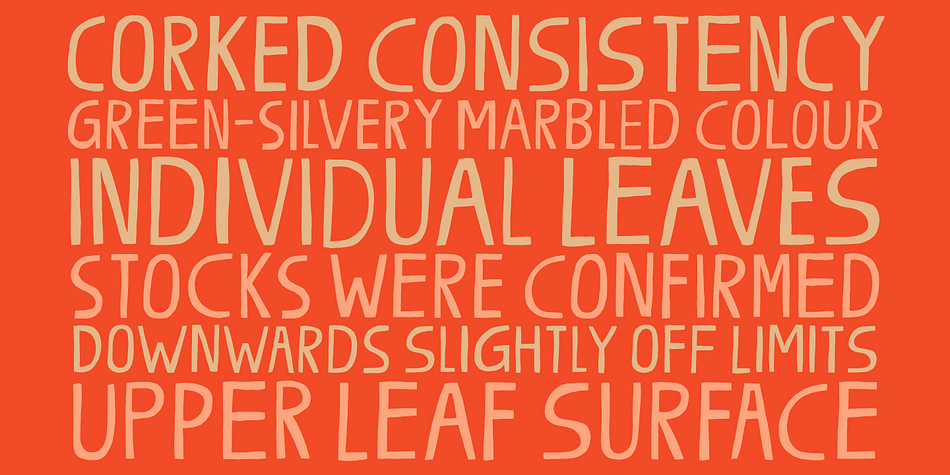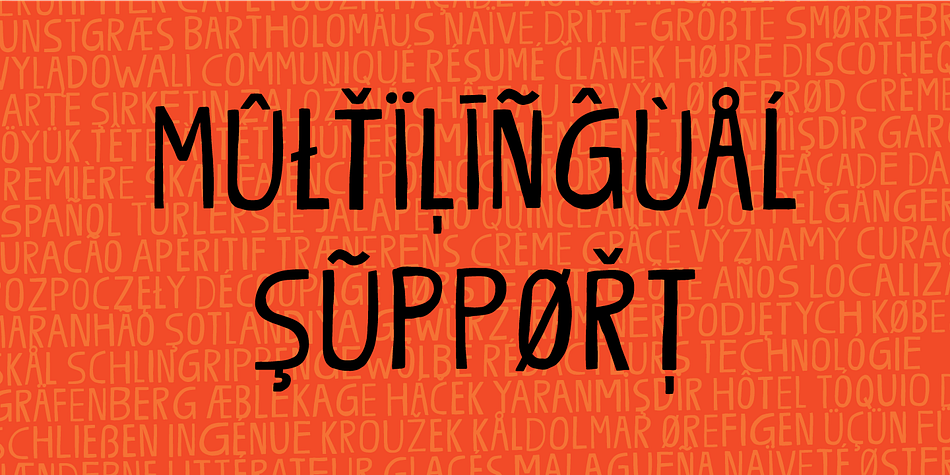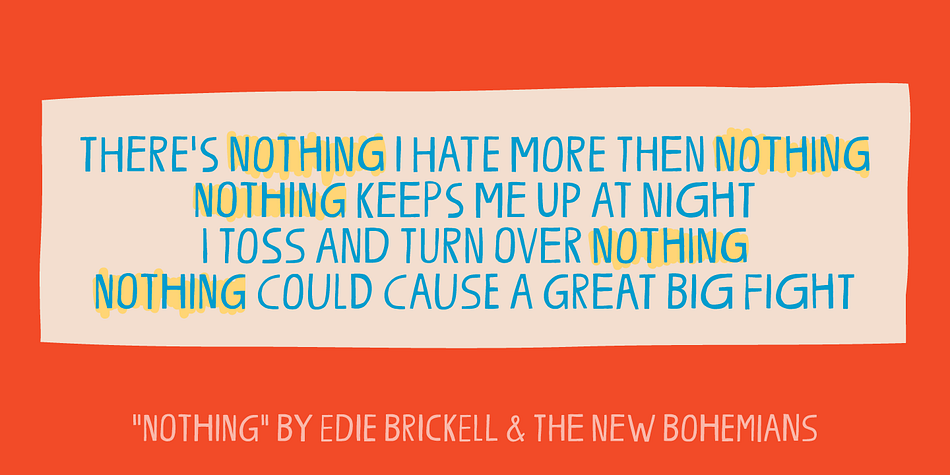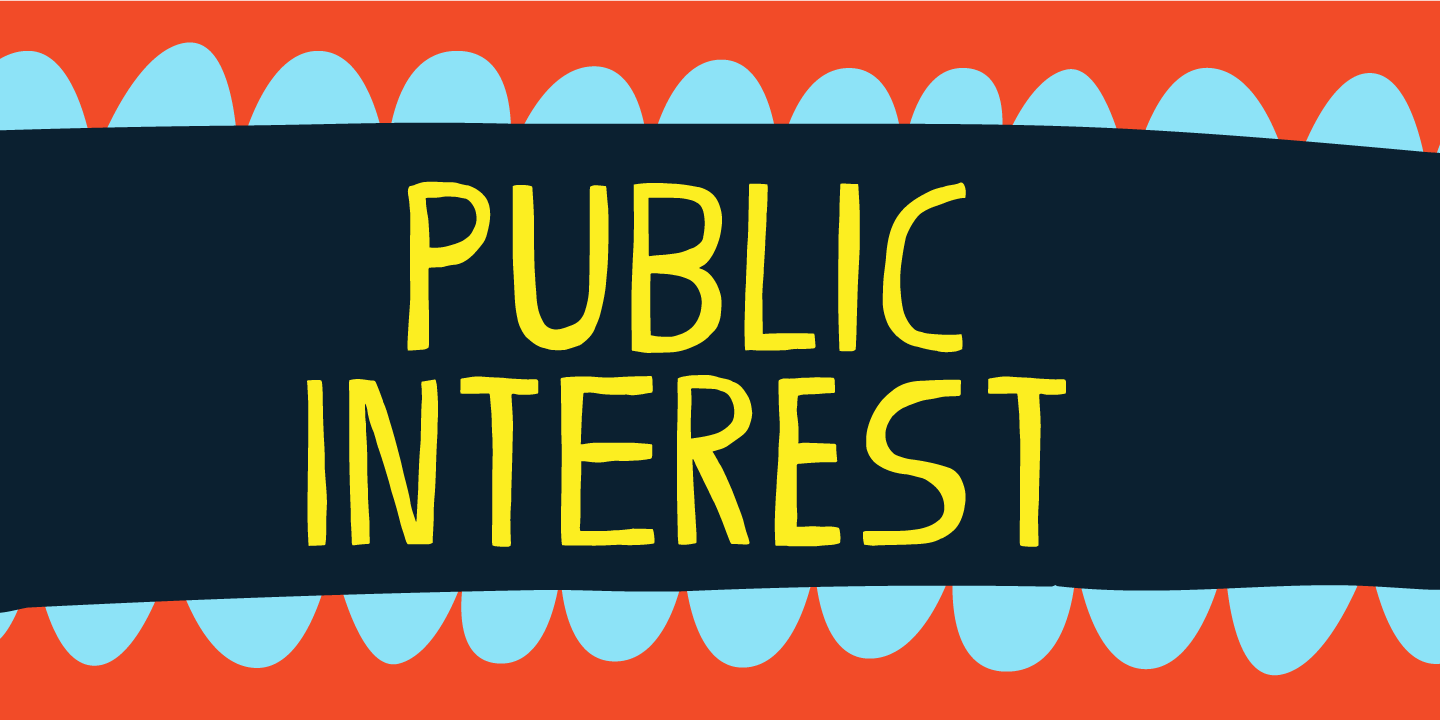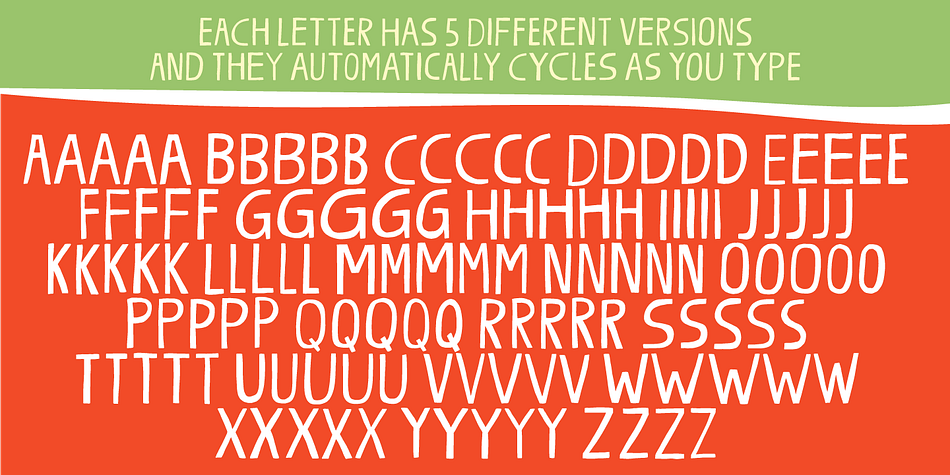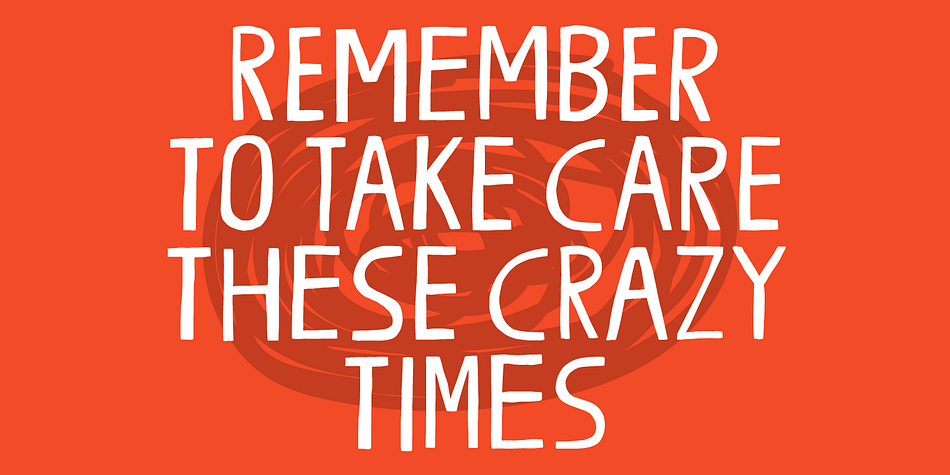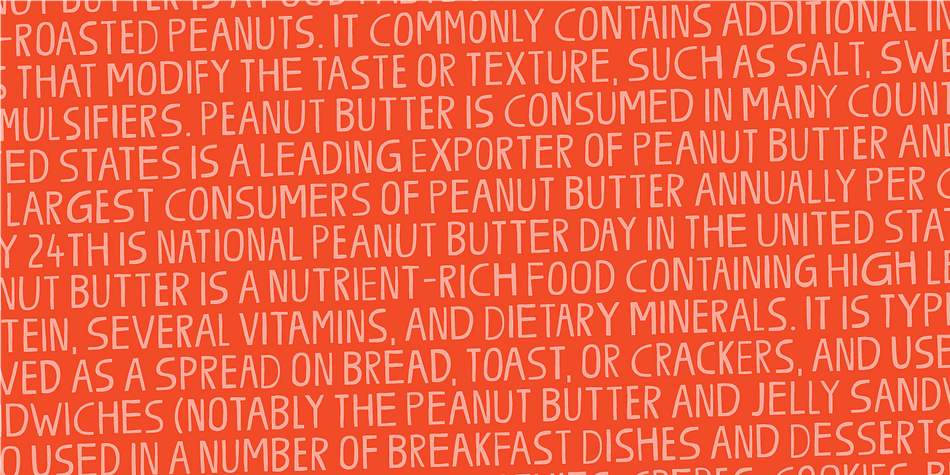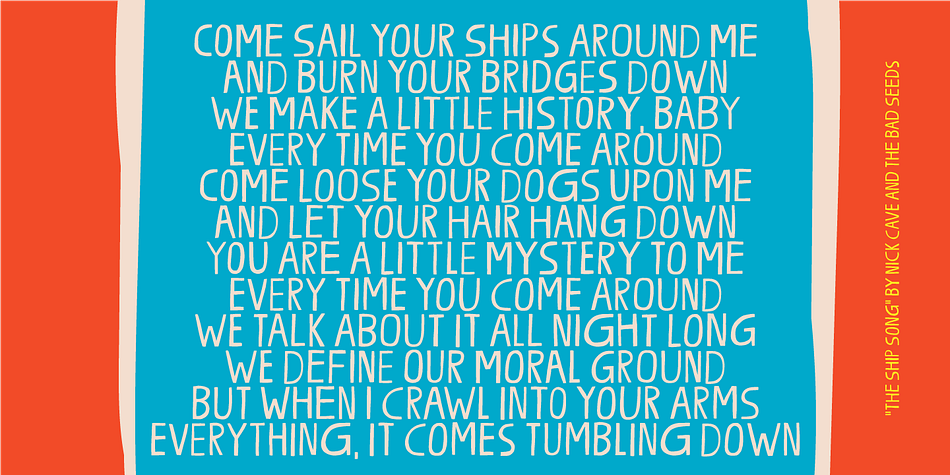
Public Interest
Designed by Jakob Fischer, Public Interest is a hand display and hand drawn font family. This typeface has two styles and was published by Bogstav.
Public Interest in my all caps fine looking handmade font. Each letter has 5 different versions and they automatically cycle as you type - making your text look even more lively and vibrant!